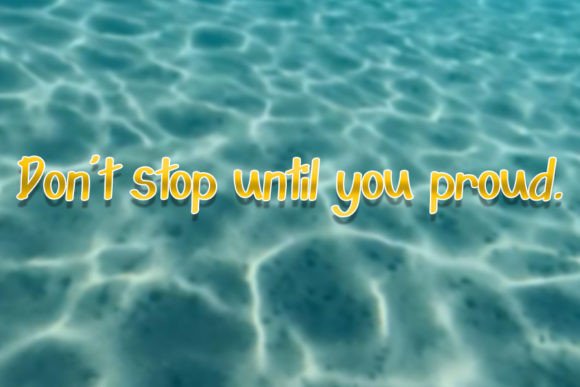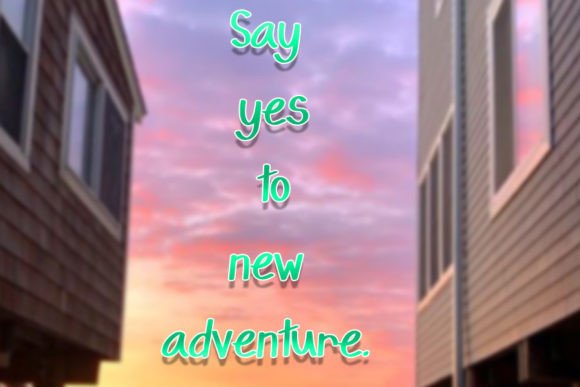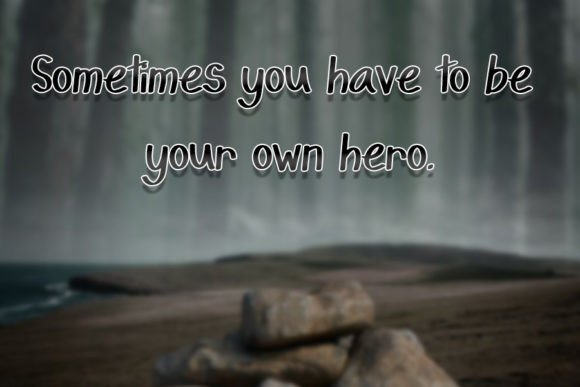
The Sweet Spot: Discovering the Charm of Faywood Font
I’ll never forget the moment I stumbled upon Faywood Font while working on a whimsical branding project for a local bakery. I had been searching for the perfect handwritten font to capture the warmth and friendliness of their brand, but everything I found seemed either too generic or too over-the-top. That’s when Faywood Font caught my eye – its sweet, natural curves and unique style instantly resonated with the project’s vibe. In this article, I’ll share my journey with Faywood Font, from its standout features to practical tips on how to make the most of it in your designs.
Faywood Font has quickly become a staple in my design toolkit, and for good reason. Here’s what I love about it:
- ✨ Natural and Unique Style: Faywood Font boasts a distinct handwritten feel that’s both approachable and eye-catching.
- ✅ Versatility: Its friendly and sweet tone makes it suitable for a wide range of projects, from branding and packaging to invitations and social media graphics.
- 💡 Excellent Legibility: Despite its unique style, Faywood Font remains highly legible, even at smaller sizes.
Of course, no font is perfect, and Faywood Font does come with a few minor quirks:
- 🤔 Limited Formality: Given its friendly nature, Faywood Font might not be the best fit for projects requiring a more formal or corporate tone.
- ⚠️ Occasional Kerning Issues: As with many handwritten fonts, you might encounter some kerning issues, especially with certain letter combinations. However, these can usually be easily adjusted in your design software.
Exploring Alternatives: Similar Fonts to Faywood
The Story Behind Faywood Font
While the exact story behind Faywood Font’s creation might be unknown, it’s easy to imagine a designer sitting down with a pen and paper, aiming to craft a font that captures the warmth and friendliness of everyday handwriting. Perhaps the designer, inspired by the beauty of handwritten notes and letters, sought to create a font that would bring a touch of personality to digital designs. Whatever the inspiration, Faywood Font’s unique style and charm have undoubtedly made it a favorite among designers and crafters.
- Q: What type of projects is Faywood Font best suited for?
- A: Faywood Font’s friendly and sweet tone makes it ideal for projects like branding, packaging, invitations, and social media graphics.
- Q: Does Faywood Font support OpenType features?
- A: Yes, Faywood Font supports OpenType features, including stylistic alternates and glyphs, which can be accessed in compatible design software.